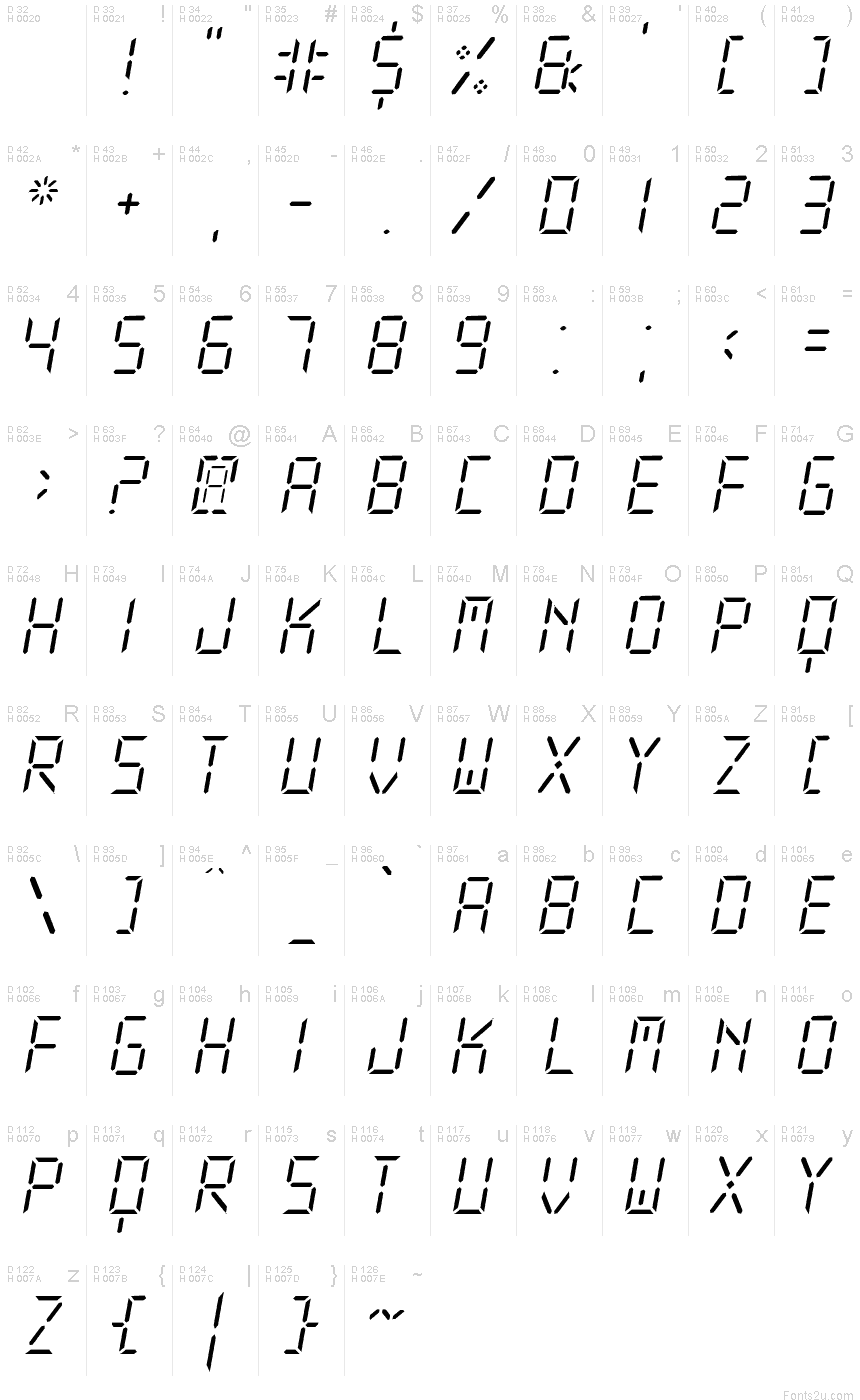
New X Digital tfb Light is a free digital display font modeled on segmented electronic readouts. Its lean strokes and generous gaps produce an unusually airy display.
Technology and retro electronics are its clearest territory, making it useful for game interfaces, music artwork, and science-fiction posters. The broken, sharply clipped forms can also turn product packaging or event graphics into convincing digital instrument-panel imagery. It is most convincing in interface-style titles that should resemble an older calculator or control-room readout.